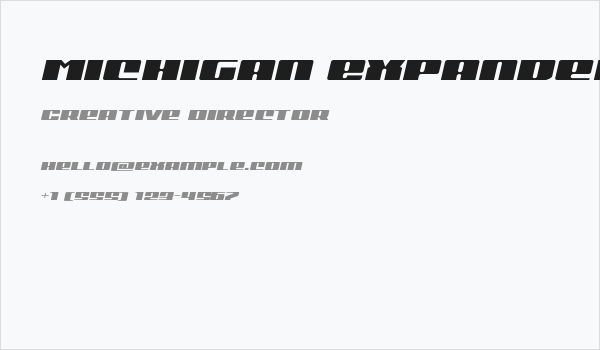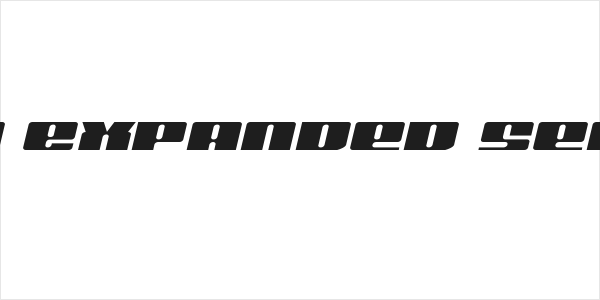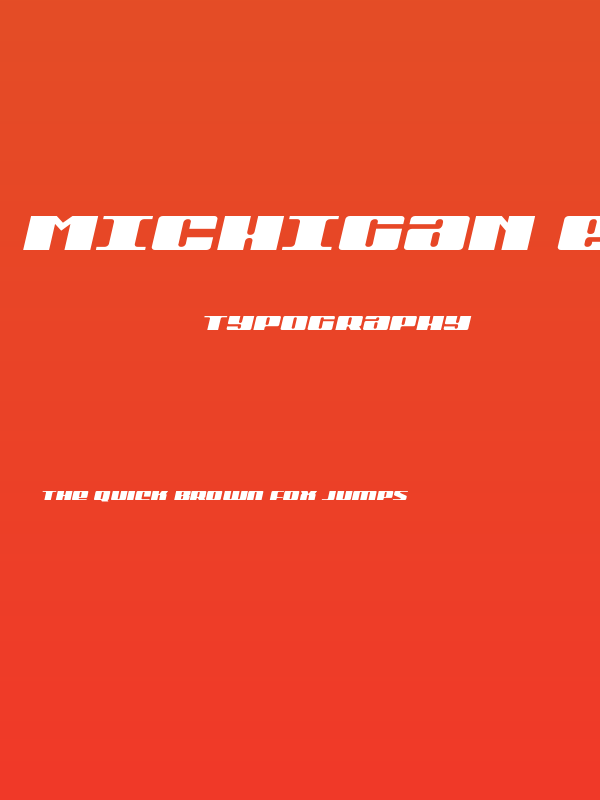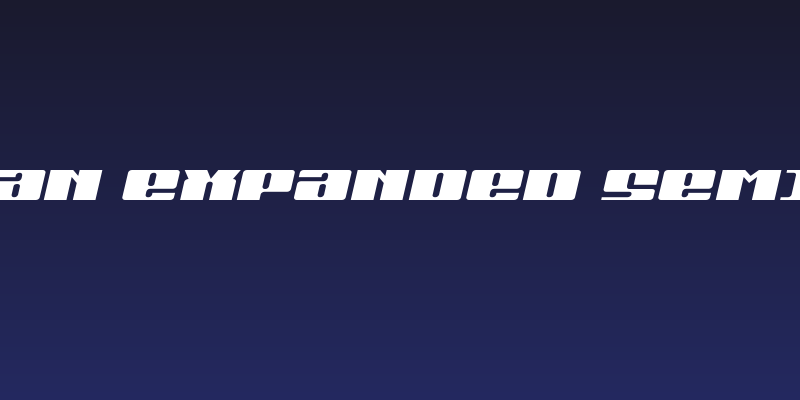
Michigan Expanded Semi-Italic Font
Michigan Expanded Semi-Italic Description
This font exhibits a bold and dynamic style with a semi-italic slant, giving it a sense of motion and energy. The characters are expanded, providing a wide stance that enhances readability while maintaining a strong visual impact. The strokes are thick and consistent, contributing to a robust appearance. The design features sharp angles and clean lines, which add a modern and futuristic feel. The numerals and special characters follow the same stylistic cues, ensuring uniformity across all glyphs. This font is well-suited for projects that require a bold statement and a contemporary edge.
| Proposed Projects | Ideal for sports branding, automotive designs, posters, and headlines that demand attention. |